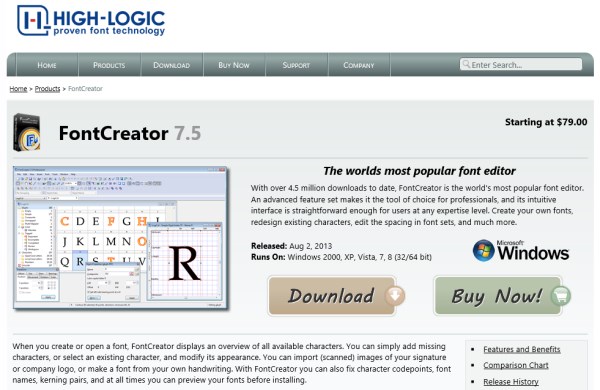
Create and edit (variable) opentype and web fonts. Choose and install your software.
92 Inspiration Best Software To Make Fonts With New Ideas, Choose the text style you like. Fontcreator, available for windows, has an intuitive interface for beginners and also has advance.
Fontello font generator is one of the best software programs available today for creating stunning, professional results. Ttf, otf, fon, fnt, bmp, ps, bdf, svg etc. $649, not so easy to use, but insanely powerful. Ironsteel is a unique medieval font design as it feels as though it comes later along in the timeline compared to most of the other fancy fonts on this list.
With some creativity and these simple steps, you can learn to create a new font with illustrator. With over 5 million downloads to date, fontcreator is considered the world's most popular and best font editor. Ironsteel is a unique medieval font design as it feels as though it comes later along in the timeline compared to most of the other fancy fonts on this list. It mainly caters to students, hobby typographers and creative professionals who need to create or customize.
Wait for the font generator to provide you with different styles. For intermediate typography design there are a number of free applications available, and it’s important to choose one that feels comfortable to use, and has the required functionality to get the job done. This font’s blocky, woodblock style makes for an elegant font pairing with smaller fonts. Fontcreator, available for windows, has an intuitive interface for beginners and also has advance. 5 Best Font Viewer Software For Windows 10.
I think every one of them has a tryout version. Built for designers by designers, the premise behind. $649, not so easy to use, but insanely powerful. Native to windows, fontcreator's feature set makes it suitable for professionals, with a straightforward interface making it accessible to users at any skill level. Free Font Creator Best Online Software to Design Fonts.
List of font creation software fontlab studio. The best that every one has always used from the beginning is what is between your ears. An advanced feature set makes it the tool of choice for professionals, and its intuitive interface is straightforward enough for users at any expertise level. Choose the text style you like. 17 Best images about Computer Microsoft Word on Pinterest Lesson.
One of the top answers when searching for the best free font resources is google fonts. $349, relatively easy to use. Best software for fonts free and can all these font maker software are completely free and can be downloaded to windows pc. Fontbase (mac/windows/linux) fontbase font application on macos. Access Google Web Fonts From The Desktop Google Has Made Another.
$649, not so easy to use, but insanely powerful. One of the top answers when searching for the best free font resources is google fonts. This is a headliner that skews a touch more modern. I think every one of them has a tryout version. 7 Best Free Font Maker Software.
My advice is to download it and see the workflow that suits you best. 10 free tools to create your own fonts 1. This is a headliner that skews a touch more modern. $649, not so easy to use, but insanely powerful. Create your own font with these 14 best tools Super Dev Resources.
Scan and vectorize the letters in illustrator to capture the distinct line length, ascenders, and descenders. My advice is to download it and see the workflow that suits you best. The tool used by >90% of professionals and hardcore font developers. Fontcreator, available for windows, has an intuitive interface for beginners and also has advance. Best Free Font Maker Software Boomzi.
Copy and paste into instagram, facebook, or other social media platforms. Choose the text style you like. My advice is to download it and see the workflow that suits you best. Choose and install your software. 7+ Best Font Creator Software Free Download for Windows, Mac, Android.
The full version is also significantly less expensive to buy than any of the fontlab apps. For facebook or instagram users. Fontello font generator is one of the best software programs available today for creating stunning, professional results. List of font creation software fontlab studio. 12 Best Tools To Create Your Custom Fonts.
One of the top answers when searching for the best free font resources is google fonts. Available only for windows, type light allows users to create truetype, opentype and postscript fonts and convert from one format to another. Offers a range of different font. How to make a font. Create your own font with these 14 best tools Super Dev Resources.
Sketch out the letters by hand. How to make a font. Coreldraw can technically be used to make fonts, but i wouldn't bother unless you already have a copy, which makes it free from your pov. This app is like a word art generator, letter generator, and font generator to make fancy messages, text symbols, and attractive writing.